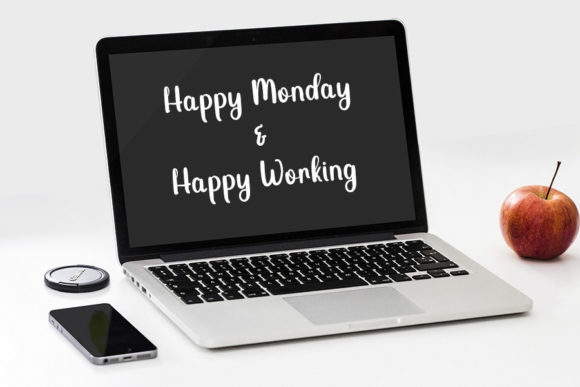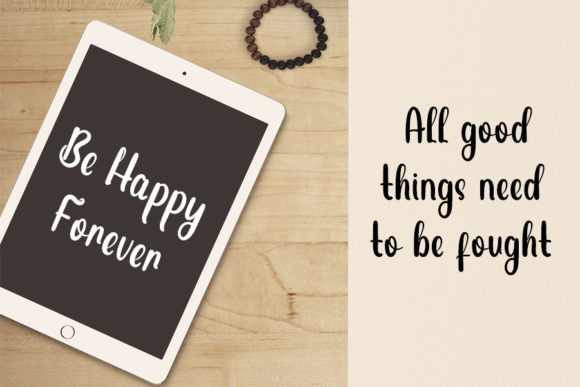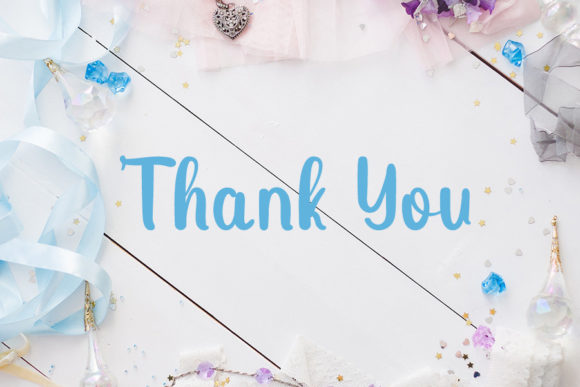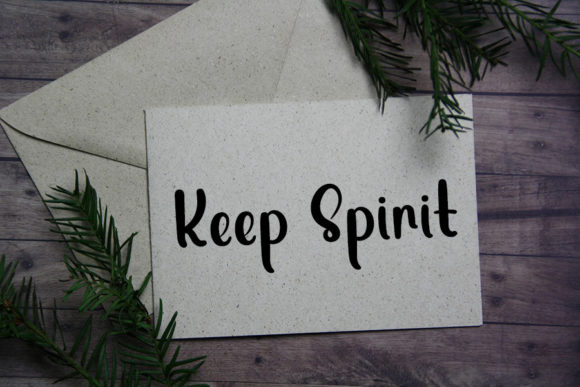
About Calendar Font
Calendar is a playful and smart-looking handwritten font. It is the ideal choice for creating eye-catching logos, branding, and quotes. Every letter has a unique and beautiful touch, which will make your design come alive!